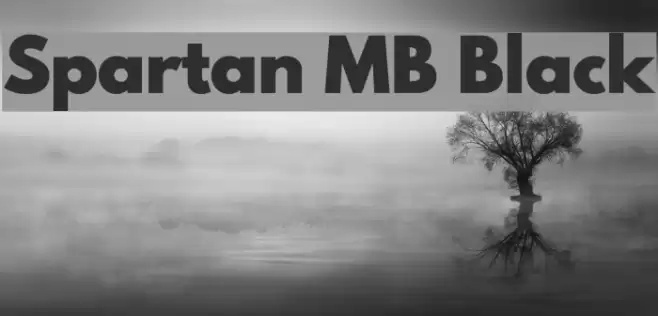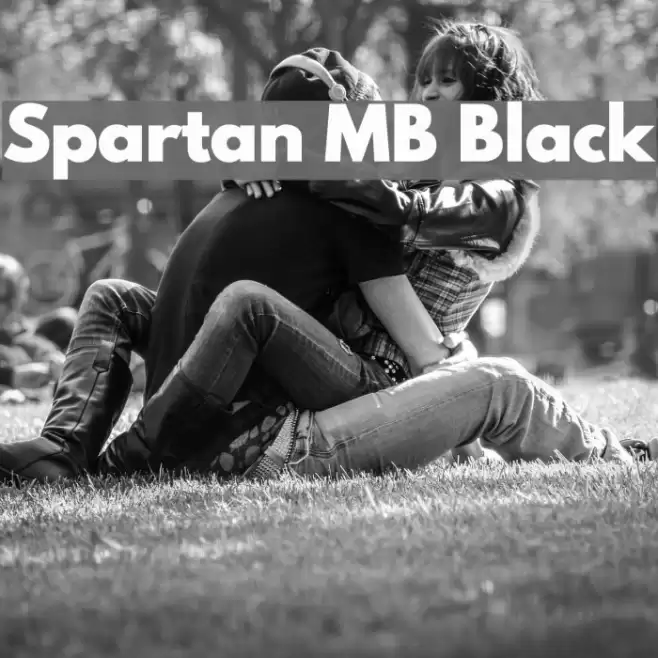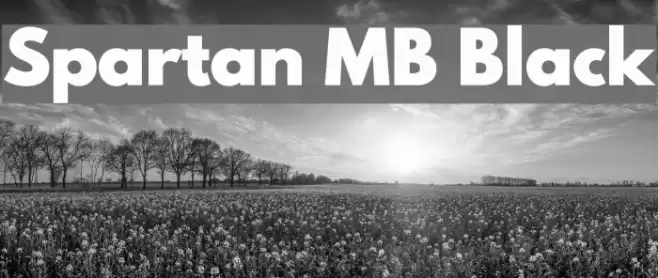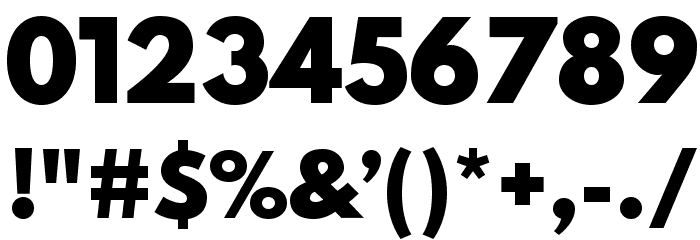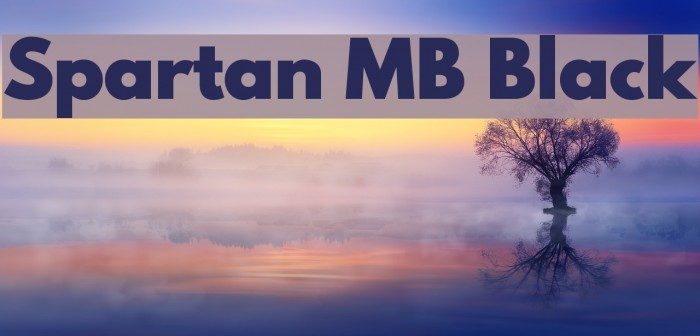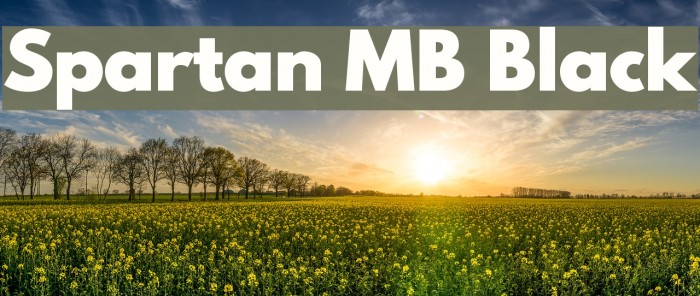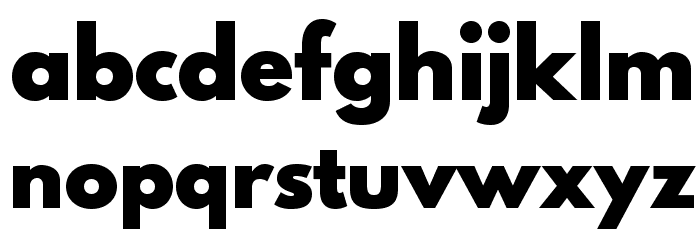
Spartan MB Black Font
Spartan MB Black Description
This font features a bold and robust design with strong geometric shapes and clean lines. The uppercase letters are uniform in height, creating a cohesive and balanced appearance. The lowercase letters maintain a similar weight and style, ensuring readability and consistency. The numerals are clear and distinct, with a modern aesthetic that complements the overall design. Special characters are included, maintaining the same bold and impactful style. This font is ideal for making a strong visual statement, with its thick strokes and high contrast ensuring it stands out in any context.
A bold, geometric sans-serif font with strong lines and high contrast from Uncategorized fonts.
- Proposed Projects: Ideal for branding, headlines, posters, and any project requiring a strong visual impact.